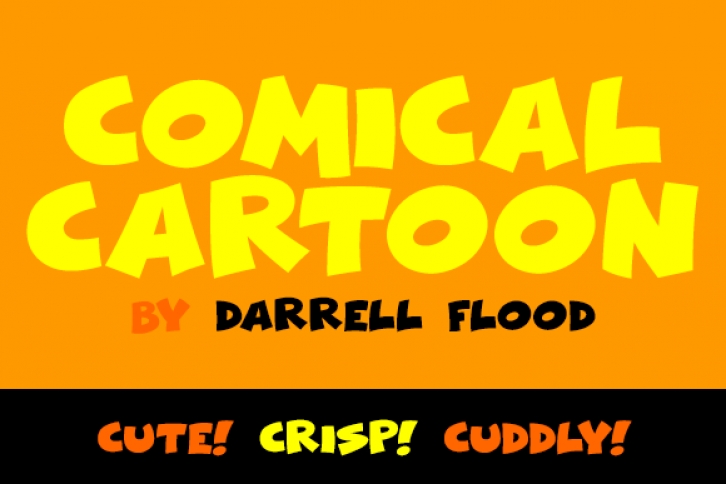
A high-impact, fun filled font, ideal for a large number of projects including comic panels and cartoon titles. Comical Cartoon has a tilted, whacky look that is perfectly suited to the funnest designs.
Font created by Darrell Flood.